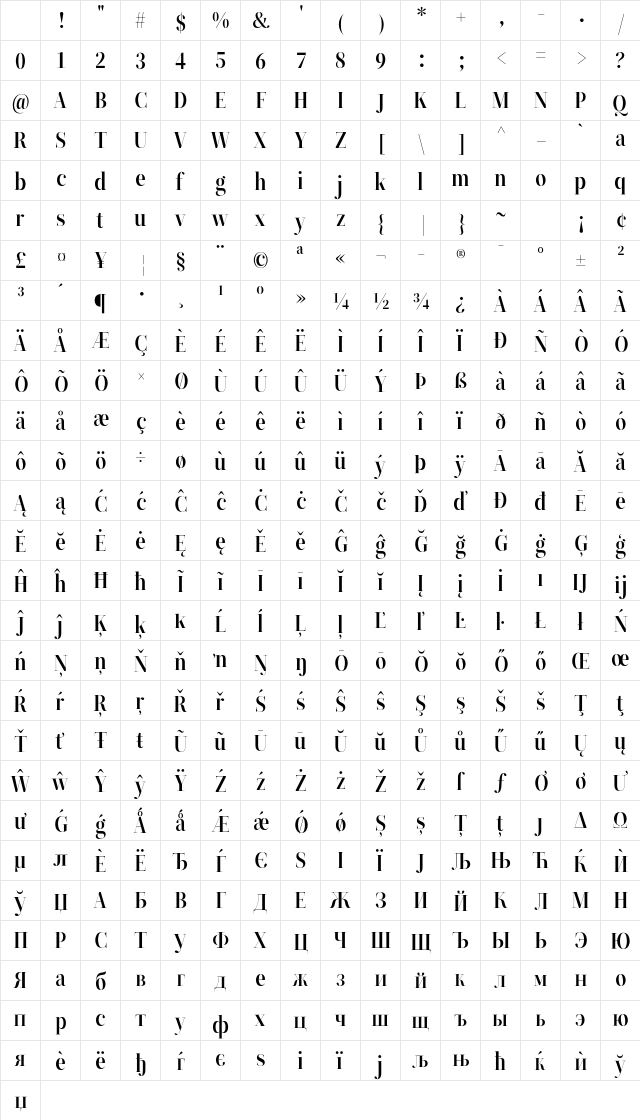
Complete ZT Neue Ralewe SemBd Regular glyph index. Displaying only characters natively supported by ZT Neue Ralewe SemBd Regular font.
ZT Neue Ralewe SemBd is a composed and adaptable typeface that performs quietly and consistently across a wide range of design contexts.